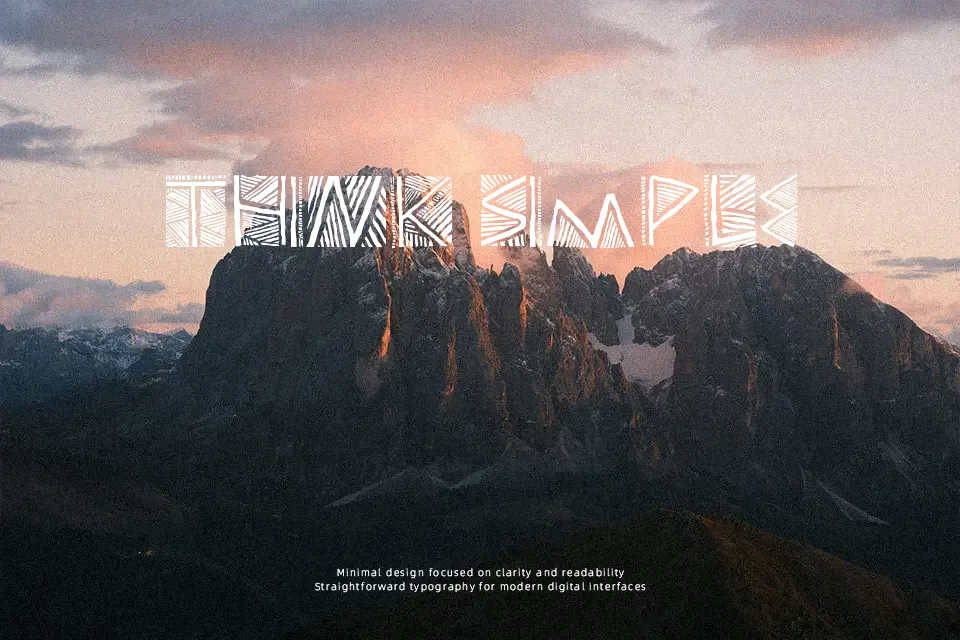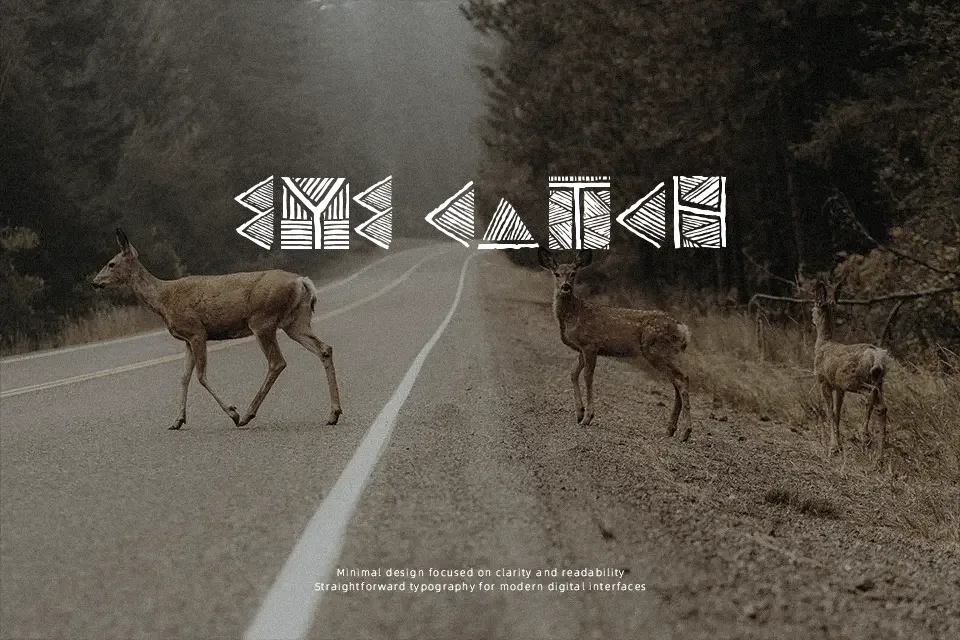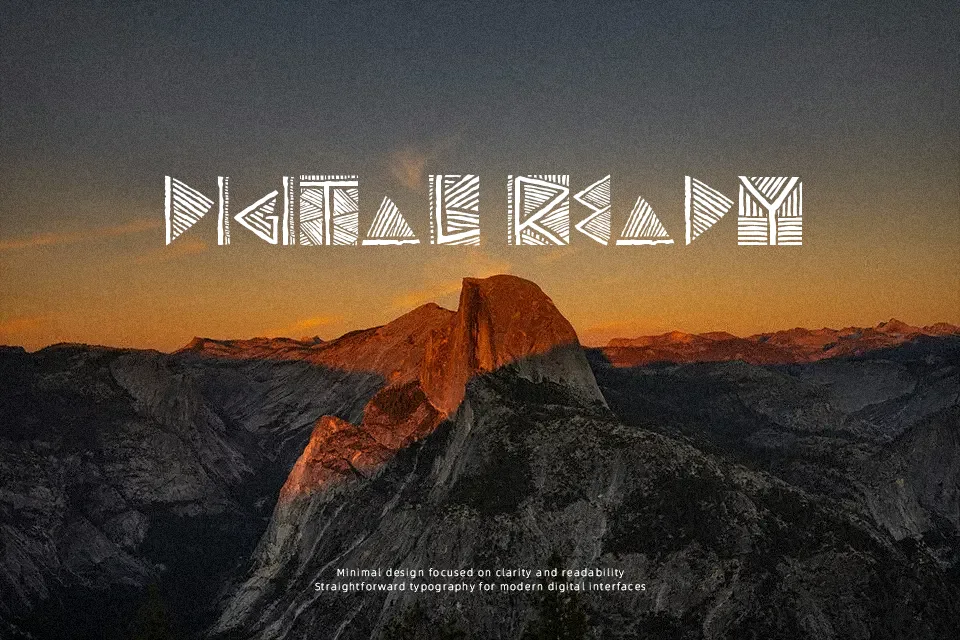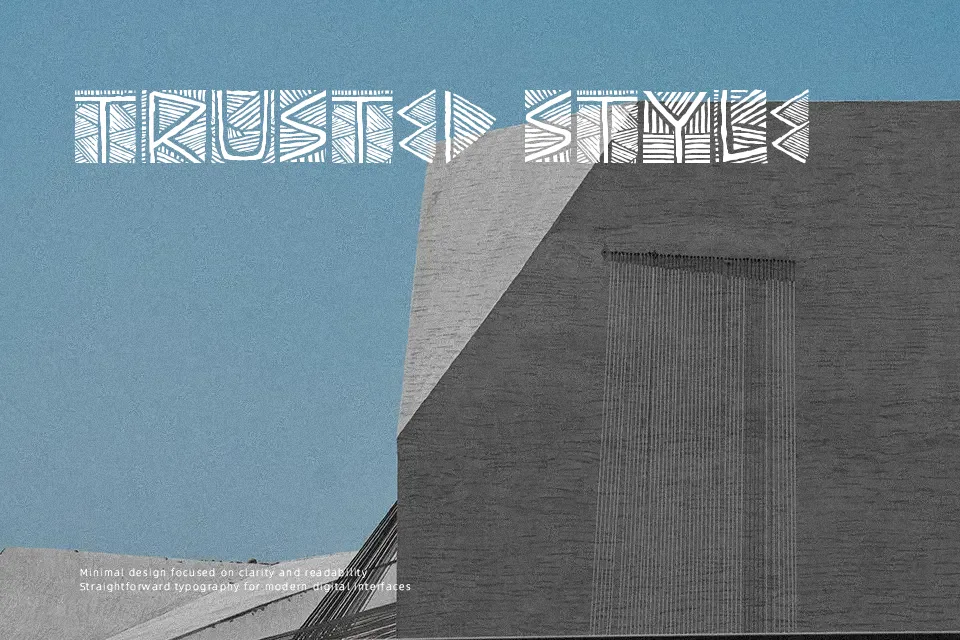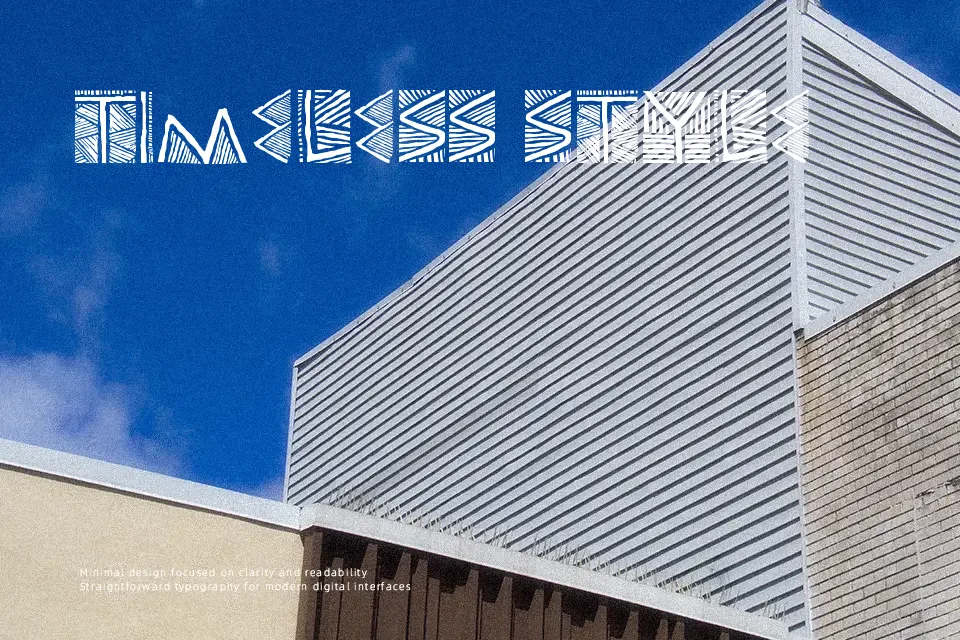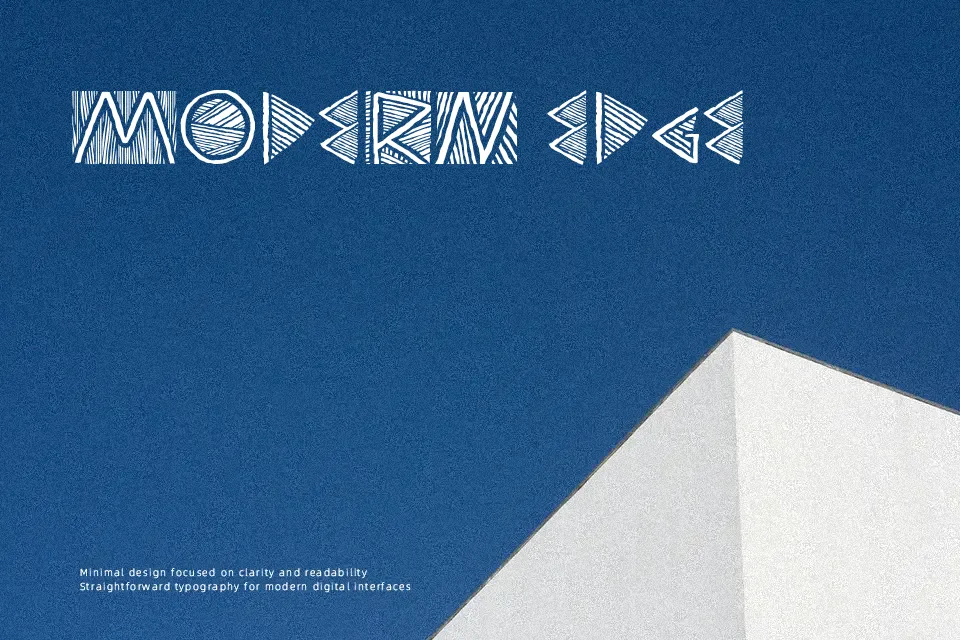
Touppeka Font
Touppeka Font showcases a distinctive decorative structure characterized by multi-line strokes and sharp geometric infills that produce a tribal, engraved appearance. The letterforms exhibit uniform vertical proportions alongside moderate character spacing, allowing the complex interior contours adequate separation in large headlines. Stroke weight remains consistently heavy throughout uppercase and lowercase glyphs, delivering commanding visual presence across event banners and album packaging. However, the dense internal hatching significantly reduces readability in continuous body copy or small interface labels. The intricate linework achieves its strongest aesthetic impact when rendered at generous display dimensions where fine internal details remain crisp and legible.
Best For: music festival posters, album cover artwork, apparel graphics, theatrical headlines
Not Ideal For: long paragraph text, small interface labels, mobile captions, dense editorial layouts
Perfect for headline, logo, and music, with a artistic and decorative style.